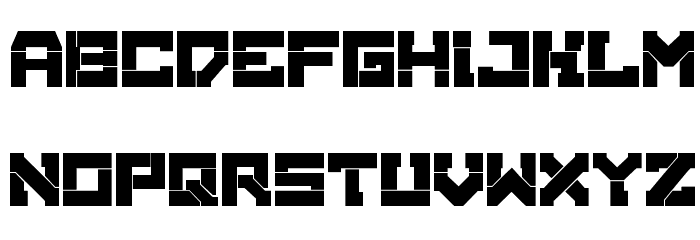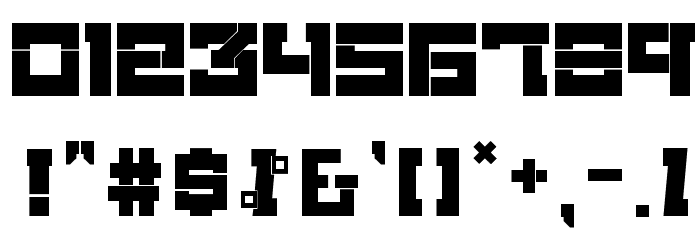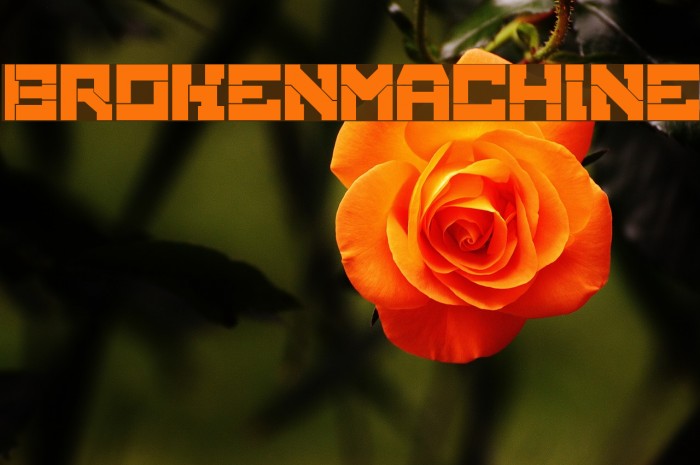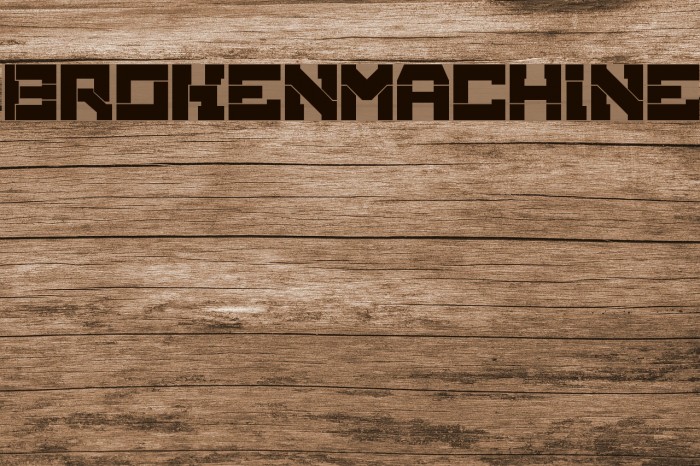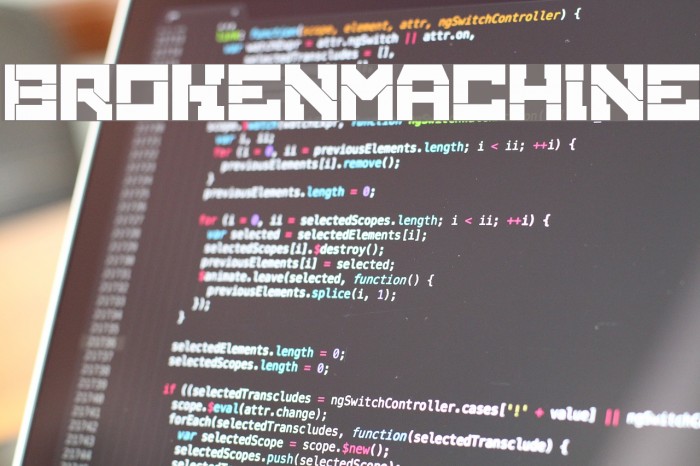
BrokenMachine Font
This font features a bold, geometric design with a futuristic and mechanical aesthetic. The characters are composed of sharp, angular shapes that create a sense of movement and energy. The uppercase and lowercase letters maintain a consistent style, with strong horizontal and vertical lines that give the font a blocky appearance. The numbers and special characters follow the same design principles, ensuring uniformity across all glyphs. This font's unique style makes it stand out, ideal for projects that require a modern and edgy look.
A bold, geometric font with a futuristic and mechanical style.
- Proposed Projects: Ideal for technology branding, video game titles, sci-fi posters, and industrial-themed designs.